29 best script fonts and how to choose one
Script fonts can be beautiful, expressive, and full of personality, but they’re also easy to overdo. One flourish too many and suddenly your design feels a little … off. Still, when used thoughtfully and strategically, script fonts can add charm, romance, or sophistication that other styles just can’t match. The key is knowing when and how to use them—and choosing the right one for the job.
Whether you're designing a brand, planning a wedding invitation, or creating something with a handcrafted feel, this guide will help you make the right choice and use it with confidence.
Read on to learn:
- The best script fonts to use for your project
- Tips for choosing script and cursive fonts
Font 1: Alex Brush
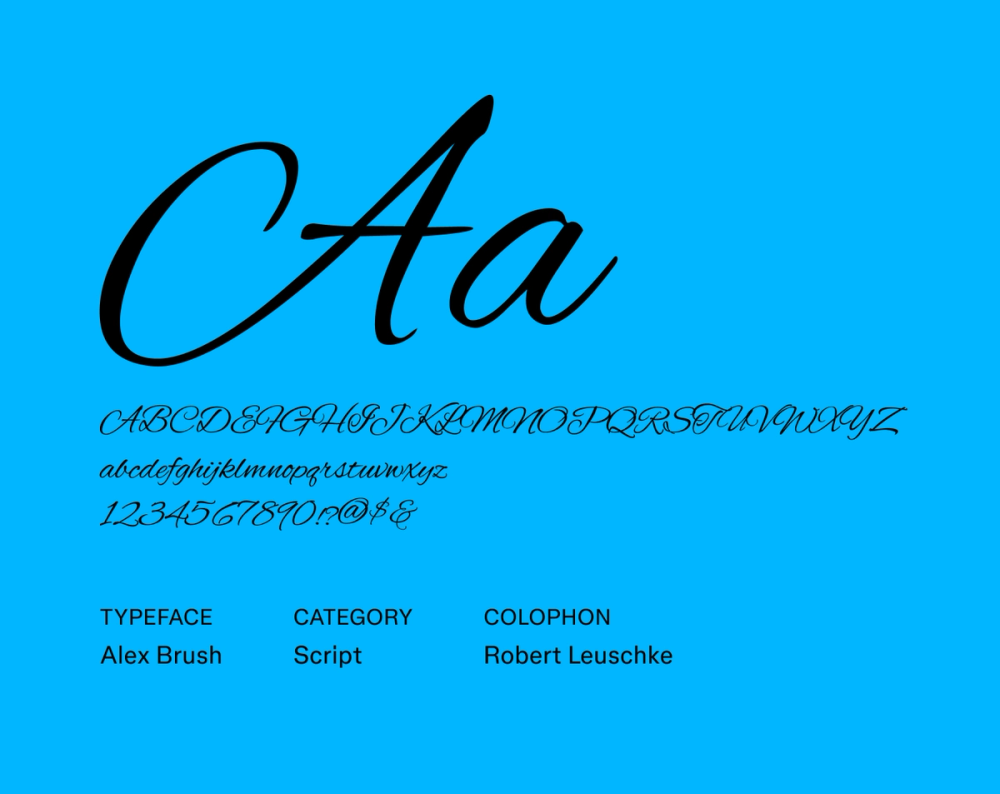
Alex Brush brings a traditional, flowing style perfect for special occasions. Its elegant strokes and subtle flourishes give it a refined feel without sacrificing legibility, even at smaller sizes. It’s a go-to for designs that need that touch of classic charm.
Best for: Weddings and special occasions
Font 2: Sacramento
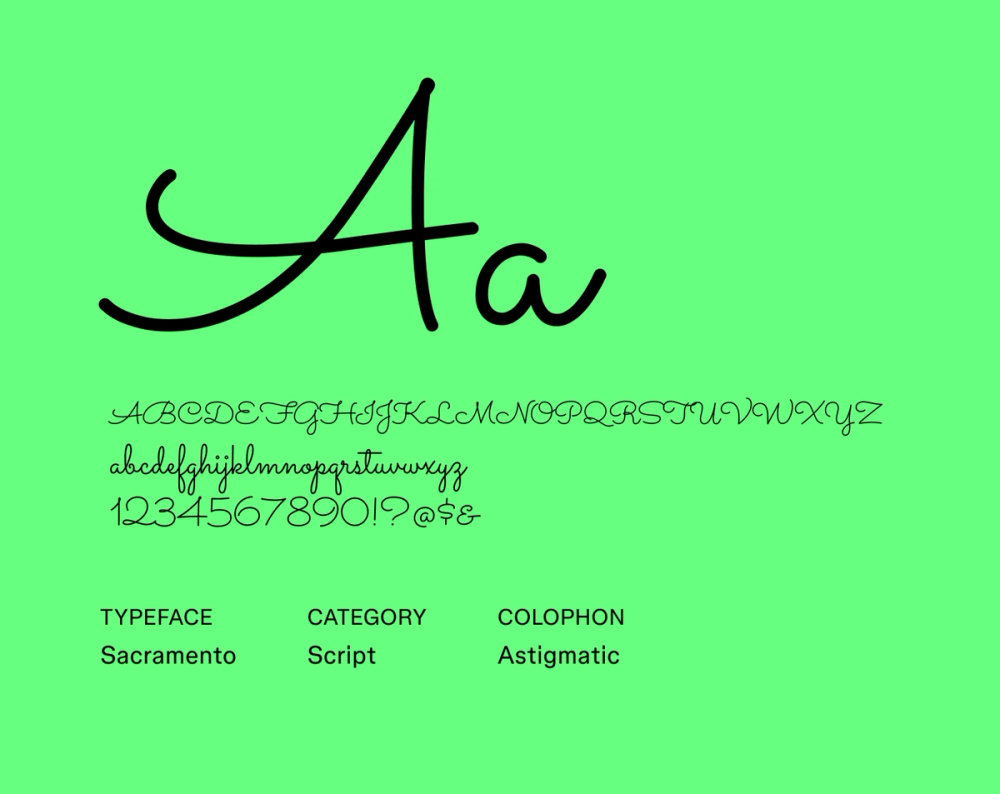
Sacramento is a monoline script font inspired by mid-century handwriting. With even stroke widths and a clean, elegant look, it’s a strong choice for branding and packaging. Bonus: it supports multiple Latin-based languages for broader versatility.
Best for: Logos, branding, and packaging
Font 3: Allura
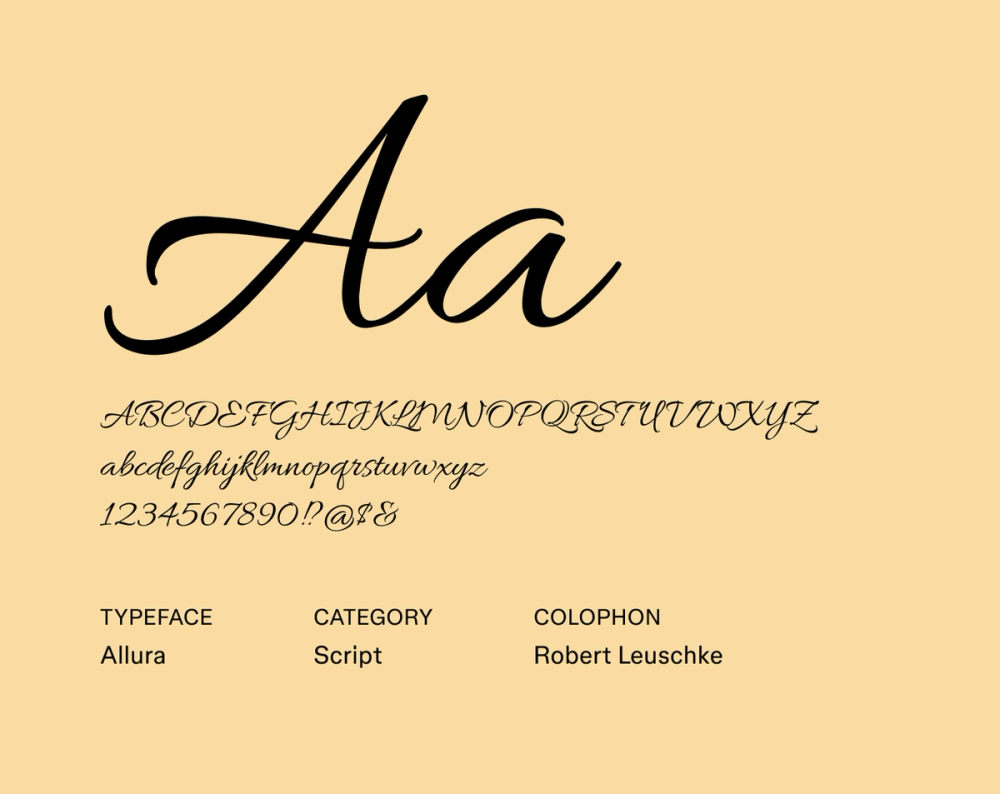
Allura is light, romantic, and full of calligraphic charm. Its sweeping strokes and varied weights create an expressive feel to this script font while keeping readability high enough for both headers and short body text.
Best for: Wedding invitations where readability is key
Font 4: Dancing Script
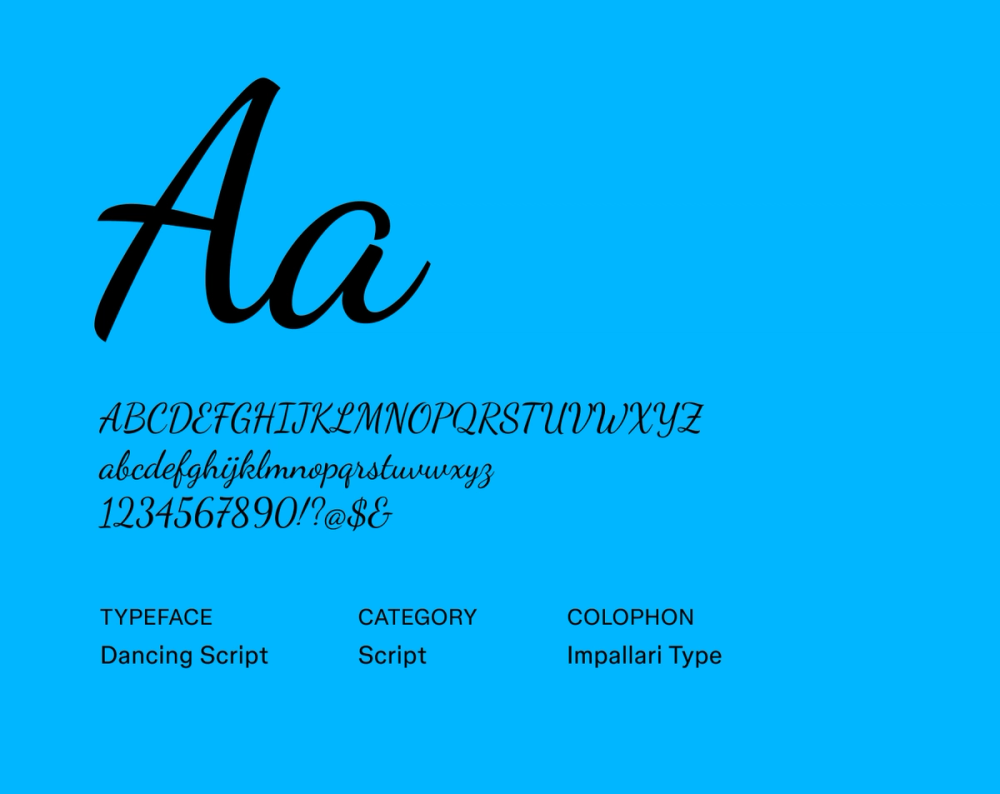
Dancing Script is casual, playful, and full of personality. Its rounded letters and bouncy baseline create a hand-drawn typeface that’s great for designs where you want to keep things light and friendly, imperfections included.
Best for: Children’s books and casual event invitations
Font 5: Beau Rivage
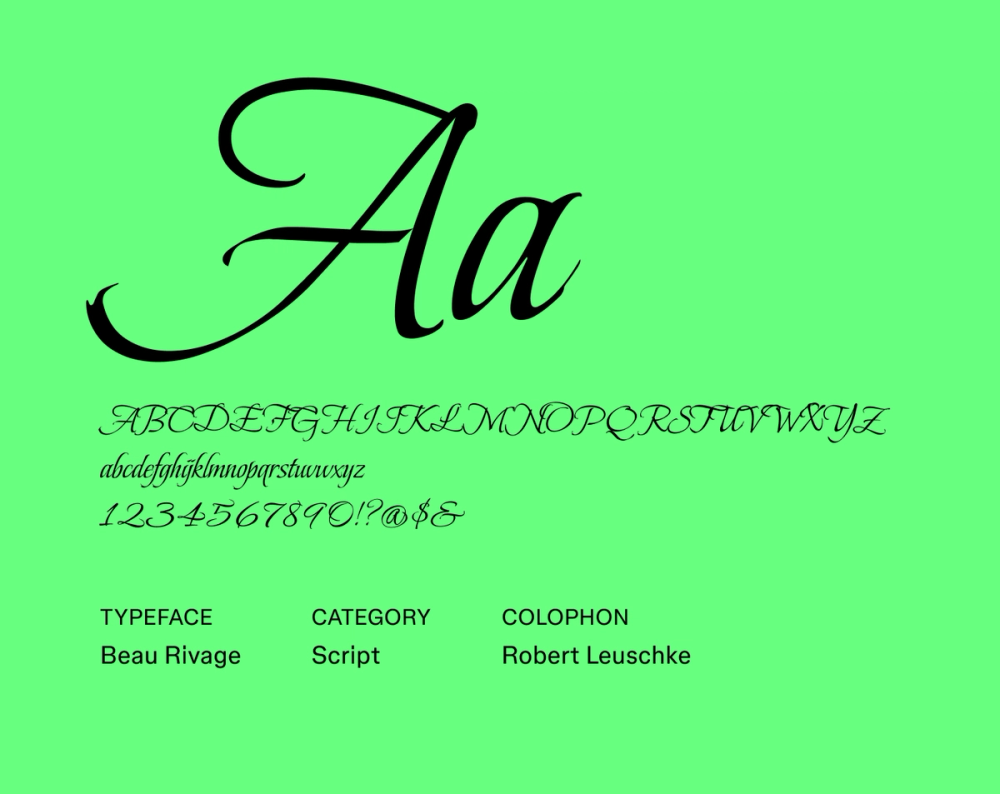
Beau Rivage blends classical calligraphy with modern readability. Its refined strokes and vintage charm make it a strong choice for projects hoping to convey timeless elegance. Its tall letterforms stay legible at smaller font sizes, making it versatile across print and digital formats.
Best for: Wedding invitations and magazine headers
Font 6: Molle
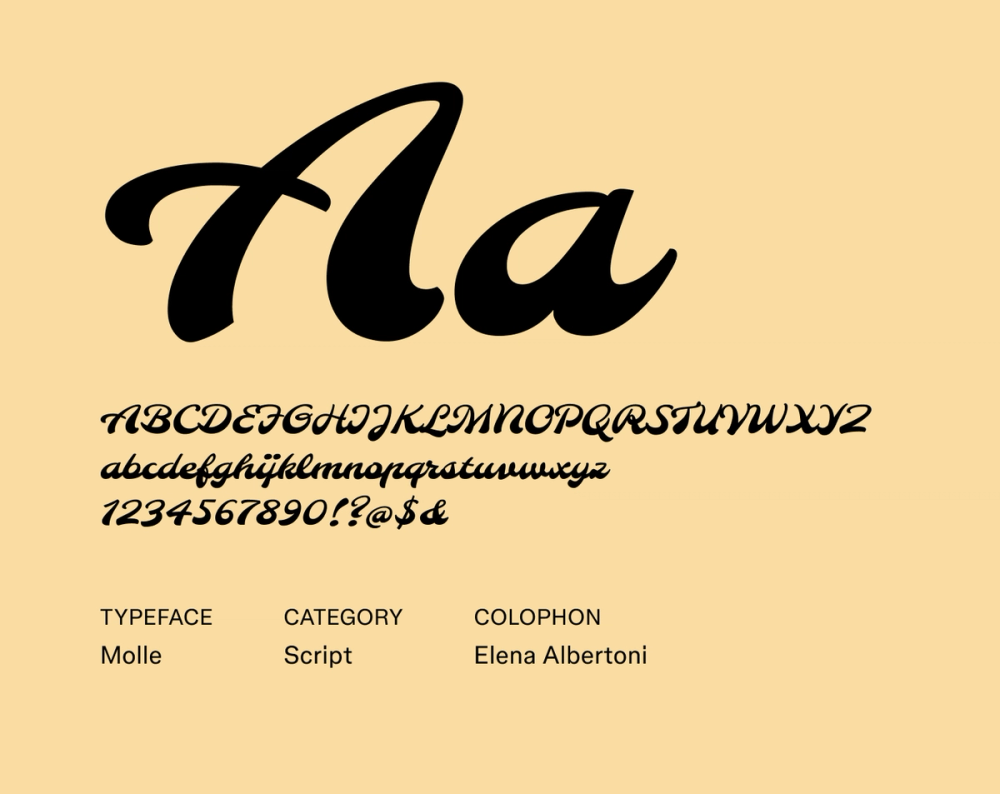
Molle is a geometric script font with an angle that shows off its groovy style. The extreme italicization makes it stand out among traditional script fonts. Molle can work within limited space, but its slant may reduce readability.
Best for: Headlines, branding, and posters
Font 7: Tangerine
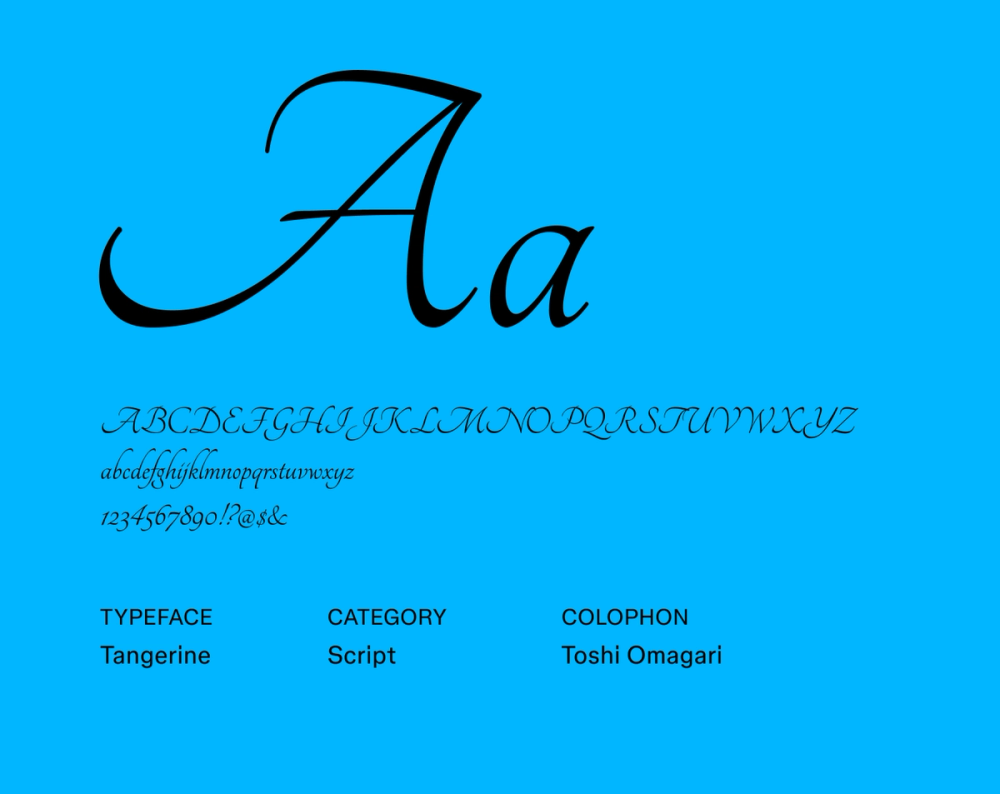
Tangerine offers a playful 1970s-inspired design. This retro typeface features slender letters with gentle slants and curled finishes. Its tall, letter-shaped design gives it a strong presence, drawing your eye to its handwritten style.
Best for: Headings, posters, and creative branding
Font 8: Euphoria Script
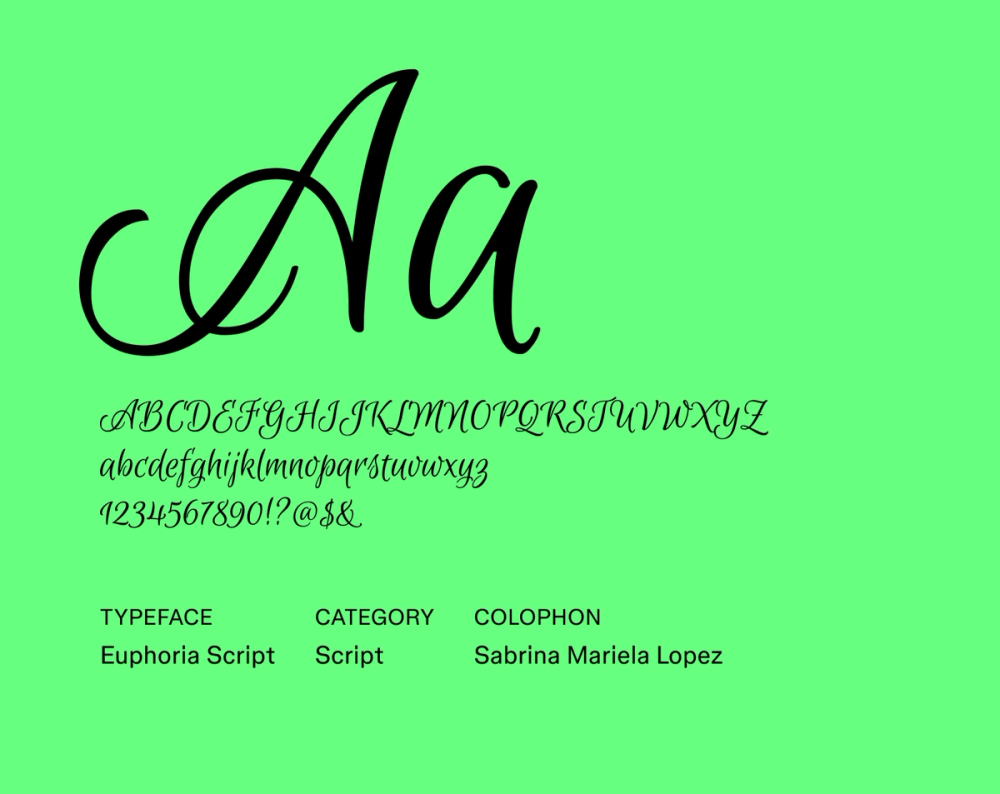
Euphoria Script has a smooth, loving style. Its broad strokes and fine details create a sense of elegance. The joined letters help guide your eye, and its lively design provides a strong feeling of motion. Small decorative touches like swirls give this script font a polished look.
Best for: Branding for beauty or fashion businesses
Font 9: Imperial Script
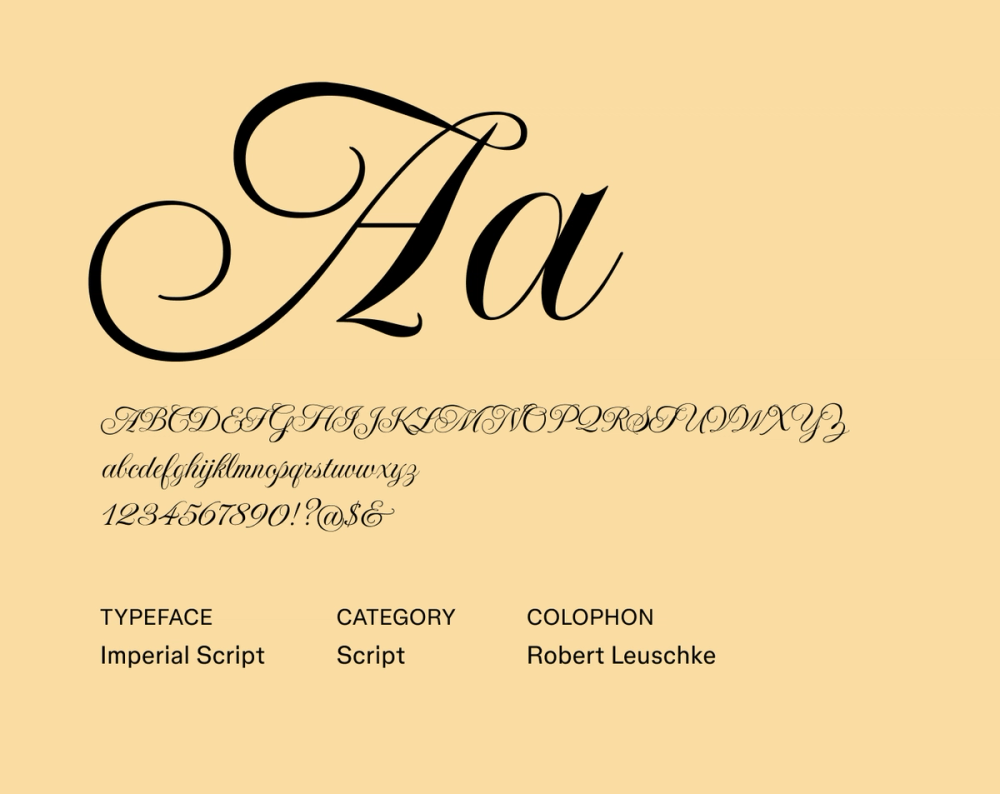
Imperial Script combines formal elegance with a classic design aesthetic. Its strokes and decorative lines create impact, reminding you of older handwriting. The script's clear letter shapes make it great for projects where easy reading is key.
Best for: Logos, monograms, and stationery
Font 10: League Script
League Script gives designers a welcoming, casual script font inspired by everyday handwriting. Its relaxed style works well for projects needing a lighthearted feel. As a top handwritten script font, League Script keeps its letter shapes clear and easy to read, even at small font sizes, because of its open forms and spacing.
Best for: Children’s books and educational materials
Font 11: Luxurious Script
Luxurious Script is a modern, sophisticated typeface. Its smooth strokes and striking details bring a refined feel to upscale design projects and the luxury market. With its flowing lines, Luxurious Script easily guides your eye across the words.
Best for: High-end branding or logos and monograms
Font 12: Grape Nuts
Grape Nuts is a casual handwritten script font. Its natural design creates feelings of warmth and approachability. This font works well to convey a playful mood, such as for kids' brands. The consistent stroke thickness makes it easy to read in many formats.
Best for: Casual branding, children’s materials, and social media
Font 13: Marck Script
Marck Script, one of the best bold script fonts, takes inspiration from calligraphy. It uses thick strokes and striking letter details to grab attention. Its clear letter shapes ensure it stays readable in various sizes.
Best for: Display headings, titles, and packaging
Font 14: Meow Script
Meow Script features rounded letters and playful details. It's a great option for imaginative projects that need a lighthearted script typeface. Its slight variations give the font a handwritten feel.
Best for: Children’s books, social media, and pet services
Font 15: Nanum Pen Script
Nanum Pen Script comes from a set of Korean handwritten fonts. This typeface has a smooth look, creating a welcoming feeling. Plus, it's open-source so you can use it for commercial projects.
Best for: Social media, greeting cards, and invitations
Font 16: Petit Formal Script
Petit Formal Script is a delicate font with a classic look. It features thin, flowing strokes and small details, perfect for sophisticated designs. Even with its polished style, Petit Formal Script remains clear to read, even at smaller sizes.
Best for: Wedding invitations, certificates, and book covers
Font 17: Pinyon Script
Pinyon Script is a light, playful typeface with a hand-drawn feel and lively letter shapes. Its varying baseline and stroke thickness create a unique look that stays easy to read in both digital and printed designs.
Best for: Casual event invitations, website headers, and branding
Font 18: Rouge Script
Rouge Script is a script font with thick strokes and striking letter decorations that grab readers' attention. This font combines a vintage look with readability, making it a good option for various design projects.
Best for: Headings, titles, and flyers
Font 19: Seaweed Script
Seaweed Script is a script font with a natural, flowing feel. Its thin strokes and playful details create a light, airy mood, like seaweed moving in the ocean. The font is also easy to read, making it perfect for headings or body text.
Best for: Casual event invitations, social media, and branding
Font 20: Style Script
Style Script is a flowing typeface that looks like calligraphy. It uses big, smooth strokes for a polished look. Its clear letter shapes keep it easy to read in both small and large sizes.
Best for: Magazine layouts, branding, and logo design
Font 21: Parisienne
Parisienne is a script font inspired by classic French design. This font works great for formal events like weddings because its elegant letters flow smoothly. The font's thickness gives it a handwritten look that’s easy to read.
Best for: Wedding invitations, luxury branding, and wine labels
Font 22: Rochester
Rochester is a script font with a handwritten appearance and smooth strokes. The clear letter shapes and simple design make Rochester easy to read and useful for various online and print projects.
Best for: Wedding invitations, certificates, and book titles
Font 23: Caveat
Caveat is a casual script font that looks handwritten. Its uneven bottom line and changing stroke thickness mirror everyday handwriting. Although it appears handwritten, Caveat is easier to read than many other script fonts.
Best for: Social media, greeting cards, and menu design
Font 24: Great Vibes
Great Vibes is a classic script font with smooth strokes and fine lines. Its soft touch makes it a good fit for beauty and high-end brands. The changing thickness of the lines adds depth and shape, and its curves create a smooth flow.
Best for: Beauty, fashion, and luxury branding
Font 25: Pacifico
Pacifico is a light and friendly typeface with a casual, retro vibe. It uses bold, rounded letters to create a warm and inviting look. The lack-of-space between letters gives it a hand-drawn feel.
Best for: Display headings, posters, flyers, and casual branding
Font 26: Playwrite USA Traditional
Based on Zaner-Bloser and D’Nealian models, it’s a very easy-to-read cursive font with a consistent slant. Playwrite USA Traditional works with over 150 Latin-based languages and comes in different thicknesses.
Best for: Branding and mimicking traditional American cursive
Font 27: Neonderthaw
Neonderthaw is inspired by old-fashioned lettering. With its rounded, flowing letters, this font reminds you of signs on vintage shops and diners. The font uses different stroke thicknesses to look like neon tubes. For better readability, use Neonderthaw in all caps for short pieces of text.
Best for: Retro-style logos, branding, and headlines
Font 28: Yellowtail
Yellowtail's hand-drawn, brush-like feel gives it a strong, smooth look. Its casual vibe makes it great for creating a friendly mood. Yellowtail uses open letter shapes and wide spacing to keep it easy to read, even when small.
Best for: Children’s books, social media graphics, and website headers
Font 29: Passions Conflict
Passions Conflict is a bold script font that uses angles to show movement. Its extra-tall and extra-low letter parts add to its visual impact, making it great for projects that need to grab attention.
Best for: Logos, branding, and headlines
Four tips for choosing the best script fonts
Script fonts give design projects unique styling and personality but can also cause legibility issues. That’s why it’s essential to design with accessibility in mind.
You should also consider typefaces based on your brand style and existing design elements. The following tips can help you select the best script font for your project.
Tip 1: Adjust the font’s spacing
Kerning and tracking refer to the white space surrounding your characters, a key graphic design principle. Kerning is the space between individual letter pairs—adjust it to ensure a more balanced appearance and improve readability. Tracking is the overall spacing between all letters and should be similarly adjusted. Text that is too close appears cramped, and text that is too loose looks disjointed.
Tip 2: Consider your audience
Script typefaces can be stylish, but designers should choose carefully. If designing for a younger audience, a playful script is ideal, while a more sophisticated, calligraphic script may be best for luxury brands and special events.
Tip 3: Pair scripts with simpler fonts
Script fonts are decorative and can appear overwhelming to the viewer if combined with similar typefaces. When pairing other fonts with script fonts, choose a more straightforward, clean option to enhance readability. Script fonts are great for headlines, but consider selecting simple sans serif or serif fonts for body text. Too many script fonts can quickly lead to clutter.
Tip 4: Prioritize legibility and accessibility
When working with script fonts, one of your primary focuses should be maintaining legibility. While beautiful, script fonts can introduce readability challenges. Test your font at different sizes to see if it’s still legible, using a background with appropriate contrast to make your text stand out. Avoid scripts that are overly stylized to improve the viewer’s experience.